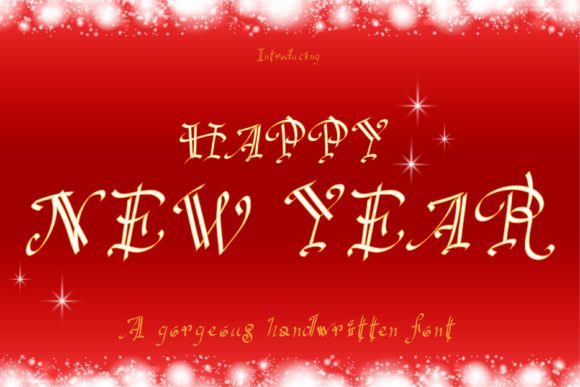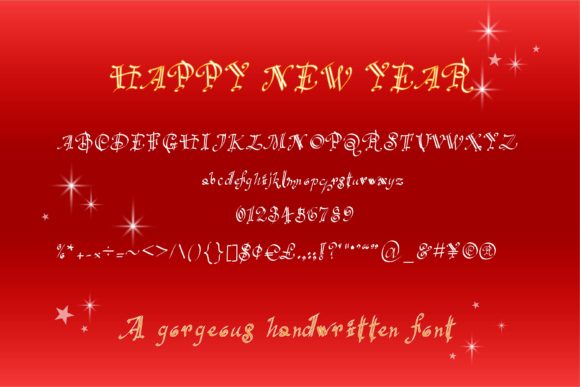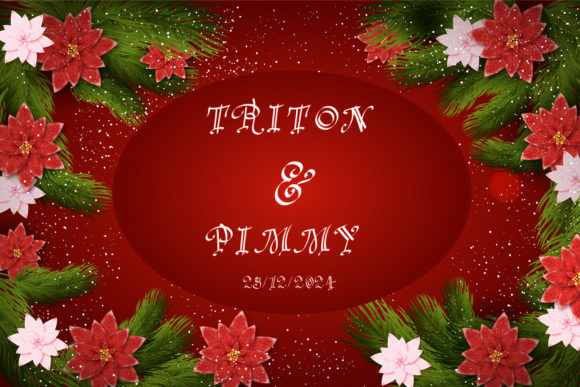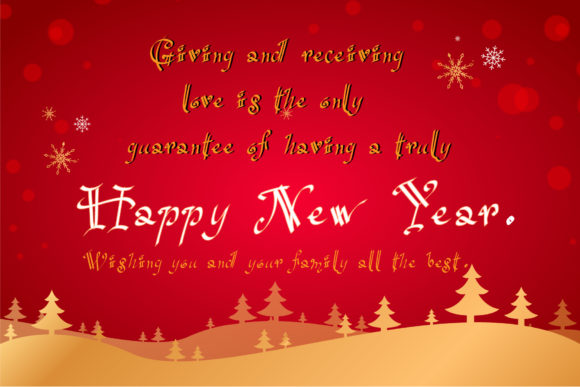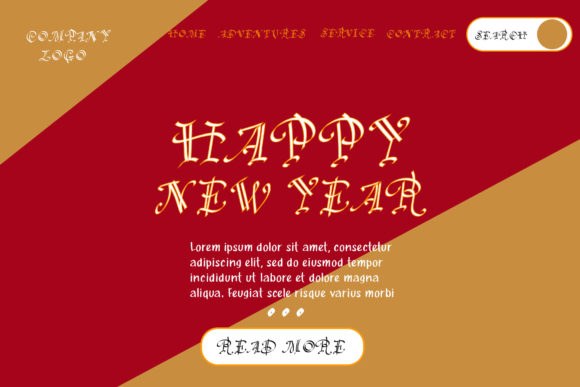
Happy New Year Font
About Happy New Year Font
Happy New Year is an exquisite, rich, and elegant handwritten font. It is ideal for holiday-themed greeting cards and for any crafting project that requires a romantic touch.